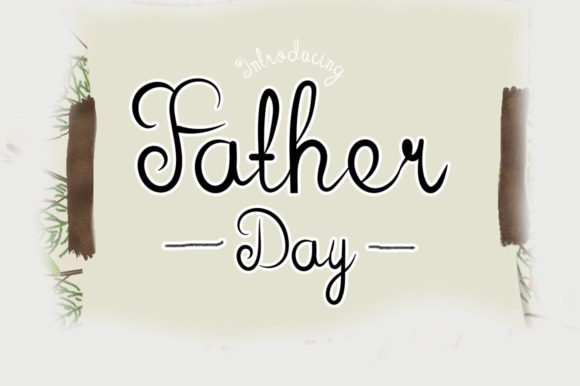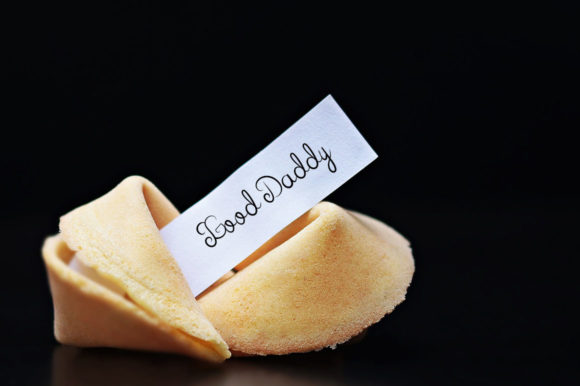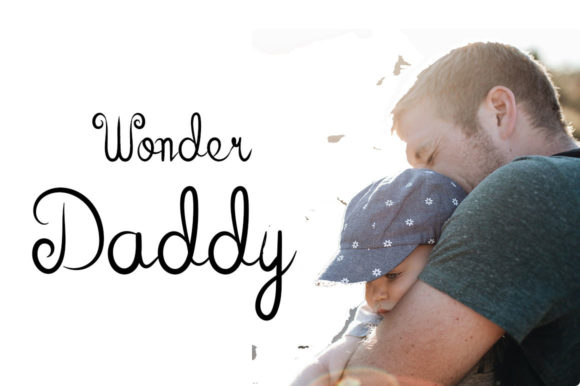
Creating Personal Touches with the Perfect Font
As designers, we’ve all been there – staring at a blank canvas, trying to bring our vision to life. It’s the moment when the right font can make all the difference. Imagine you’re working on a wedding invitation, and you need that special something to make it truly unforgettable. This is where the Father’s Day Font comes in – a beautiful, elegant handwritten font that adds a touch of personality to any design.
With its versatility and charm, the Father’s Day Font is a valuable tool for designers looking to create unique and personalized projects. Whether it’s a wedding invitation, a thank you card, or a logo, this font is sure to make a lasting impression. Its elegant style makes it perfect for a variety of designs, from formal events to everyday greeting cards.
Father’s Day Font Key Features
- Unique Characteristics: The font features a modern, elegant design with subtle rounded edges and a balanced feel, making it suitable for both digital and print media.
Father’s Day Font Review
Overall, I was pretty excited to dive into the Father’s Day Font, but my experience was a mixed bag. ✨ Here are a few things that worked well:
- The font’s theme is well-executed and perfectly captures the spirit of Father’s Day.
- The design is clean and easy to read, making it suitable for various applications.
- The font’s color palette is vibrant and eye-catching, adding a nice touch to any project.
However, there are a few limitations that prevent me from giving it a glowing review:
- The font’s design is quite generic and lacks a unique touch, making it feel overused.
- The characters may not be as detailed as some users would like, which could be a problem for certain applications.
- The font’s support for special characters and languages is limited.
Overall, the Father’s Day Font is a decent choice for casual projects or personal use, but it may not be the best option for professional or high-stakes applications.
The Father’s Day Font is ideal for:
- Cards and invitations for Father’s Day.
- Personalized gifts and mugs.
- Social media posts and graphics.
For the most effective use of the font, keep the design simple and bold, and use a mix of font sizes and styles to create visual interest.